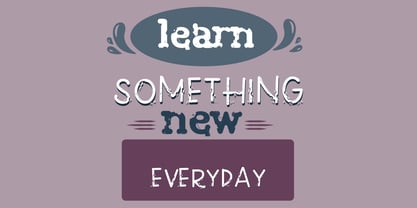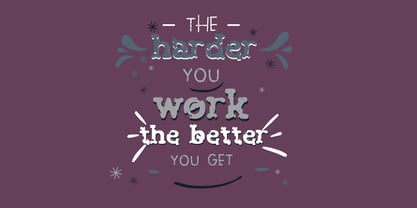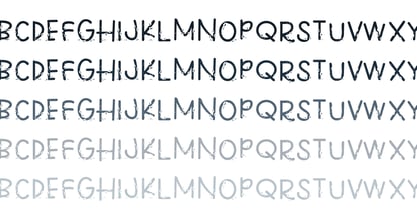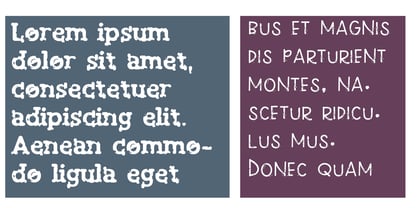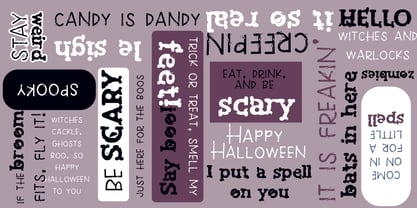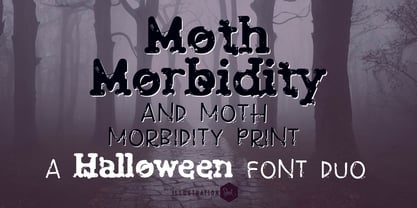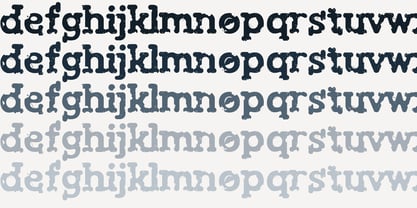
ZP Moth Morbidity
by Illustration Ink
The ZP Moth Morbidity Font Family was designed by Illustration Ink and published by Illustration Ink. ZP Moth Morbidity contains 9 styles and family package options. More about this family
This hand-crafted font duo combines a creepy, moth-chewed serif and a coordinated, hand-printed sans serif.
Designers: Illustration Ink
Foundry: Illustration Ink